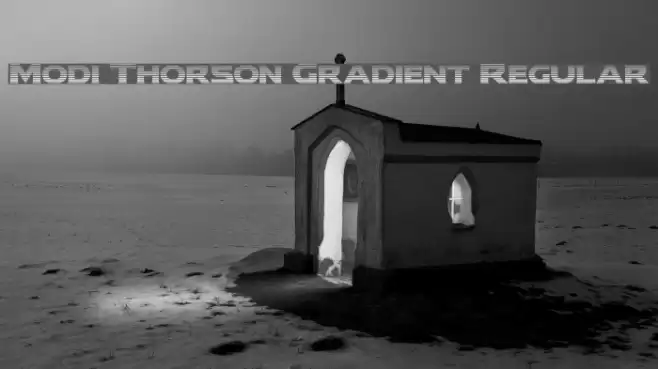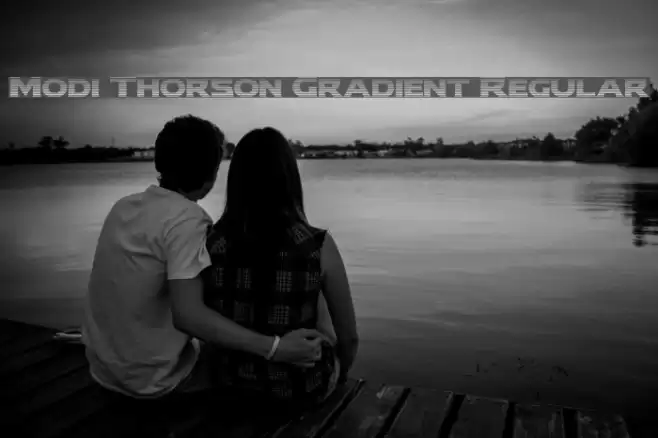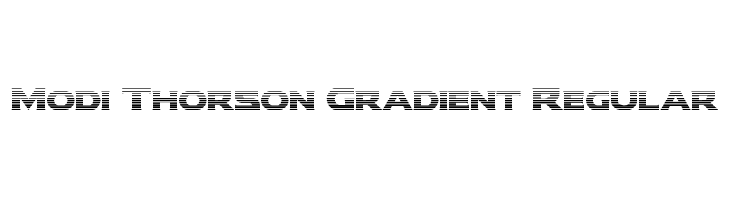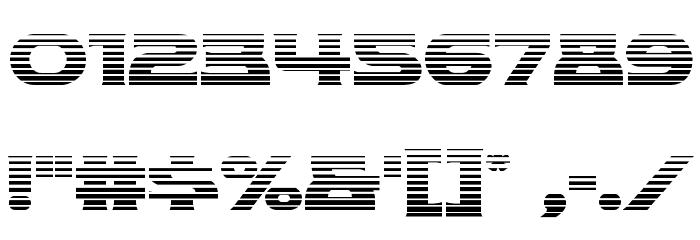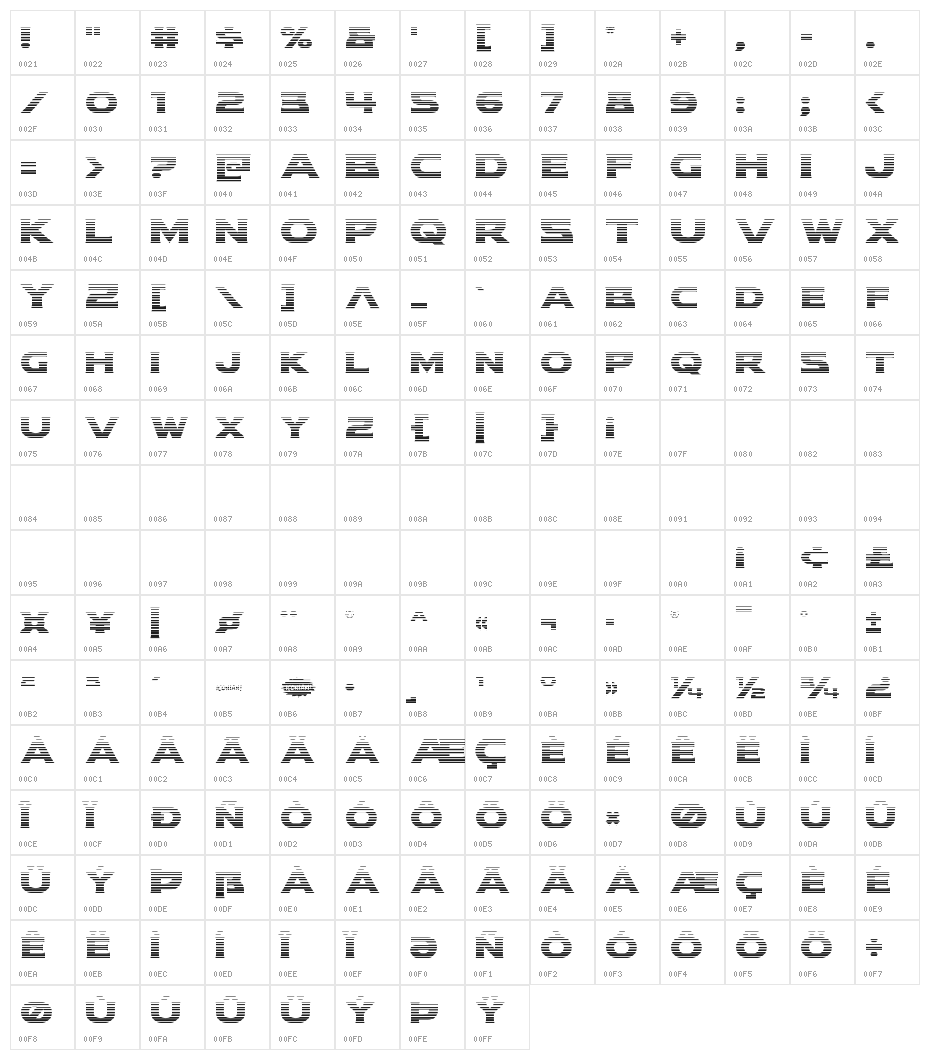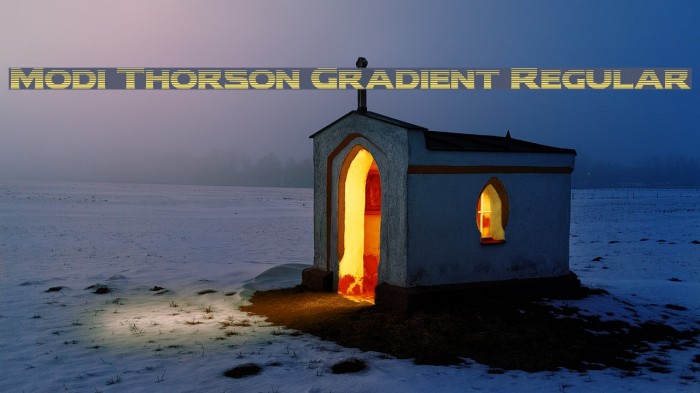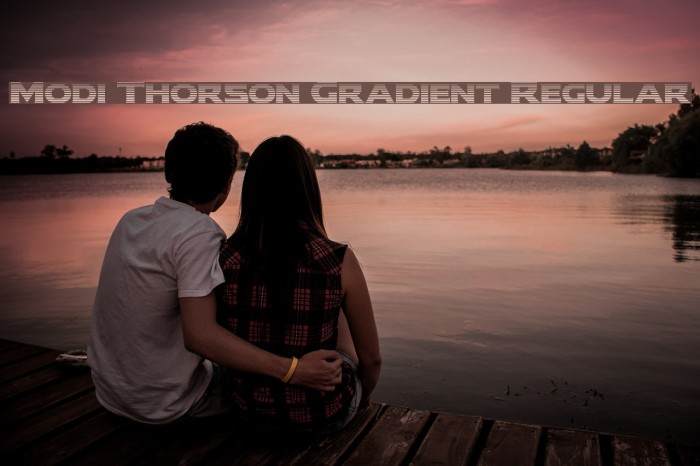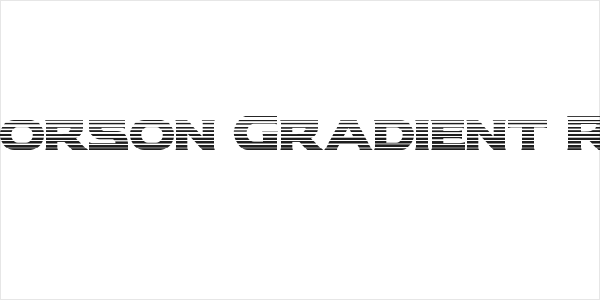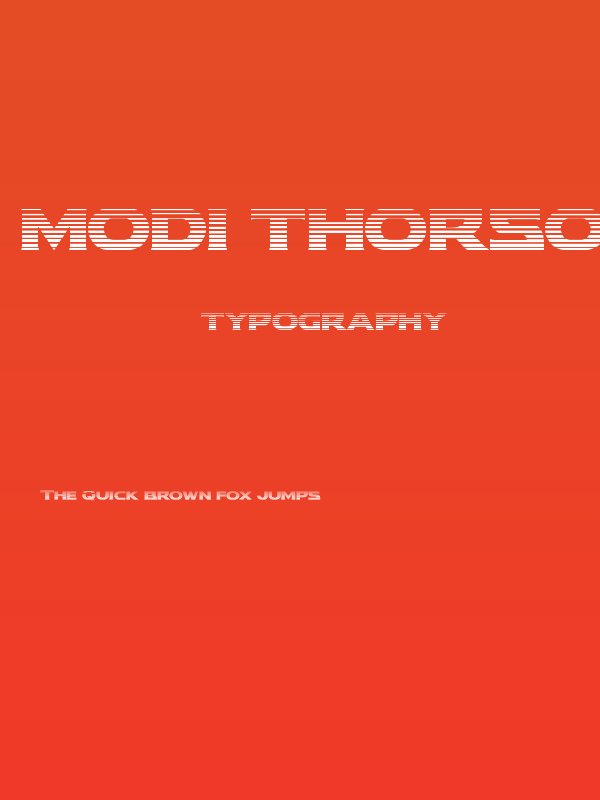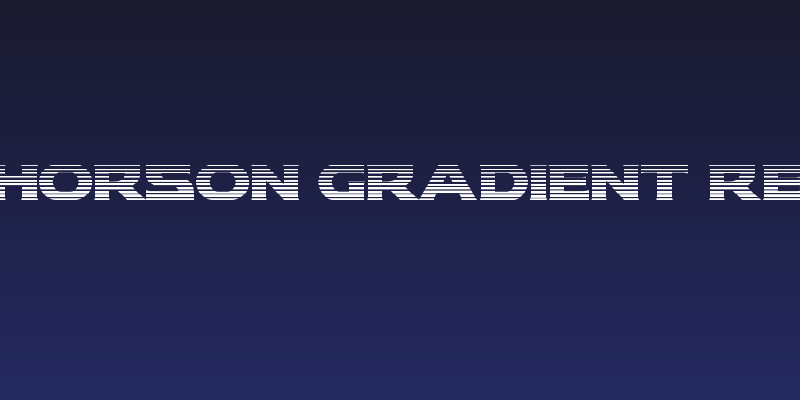
Modi Thorson Gradient Regular Font
Modi Thorson Gradient Regular Description
This font features a bold, modern design with a unique gradient effect created by horizontal lines that give it a dynamic and futuristic appearance. The characters are wide and have a strong presence, making them ideal for attention-grabbing headlines or logos. The uppercase and lowercase letters maintain a consistent style, with the gradient lines adding depth and texture. Numbers and special characters are also designed with the same gradient effect, ensuring a cohesive look across all text elements.
A bold, modern font with a unique gradient effect created by horizontal lines from Uncategorized fonts.
- Proposed Projects: Ideal for futuristic branding, tech-related projects, and eye-catching headlines.
- Width: Expanded